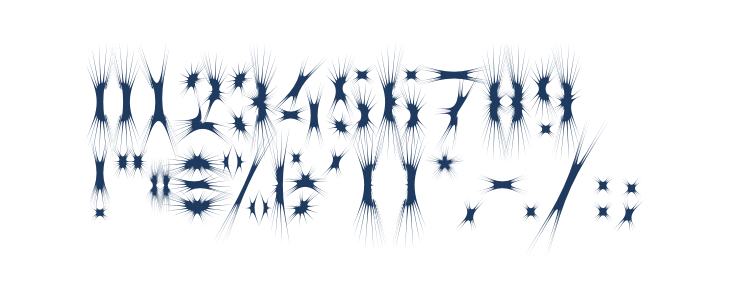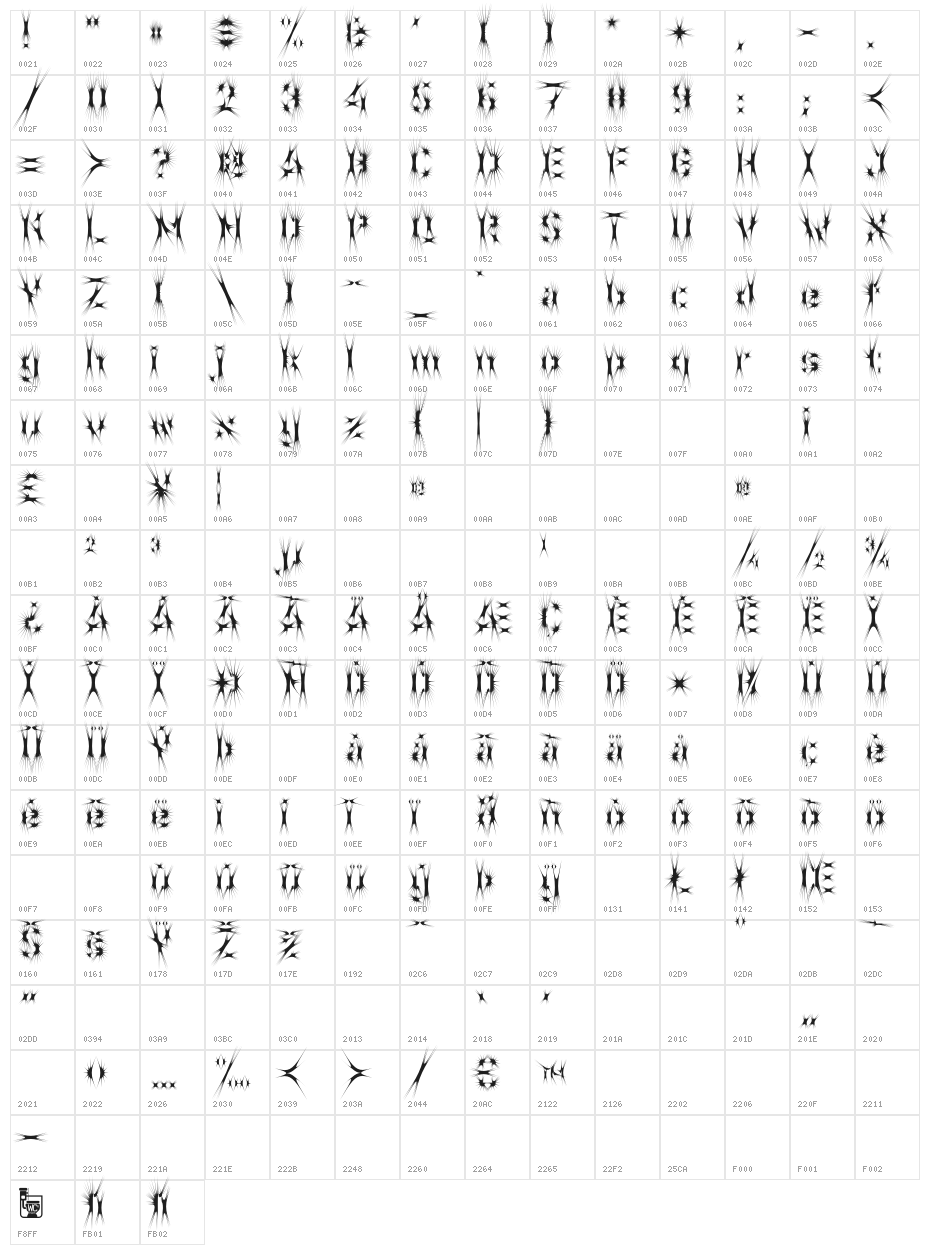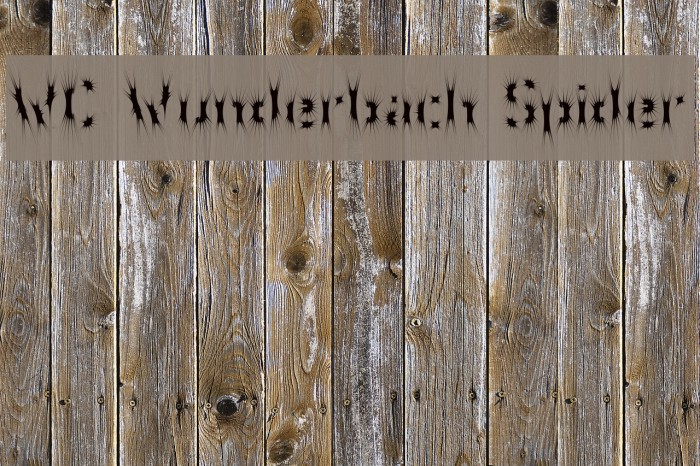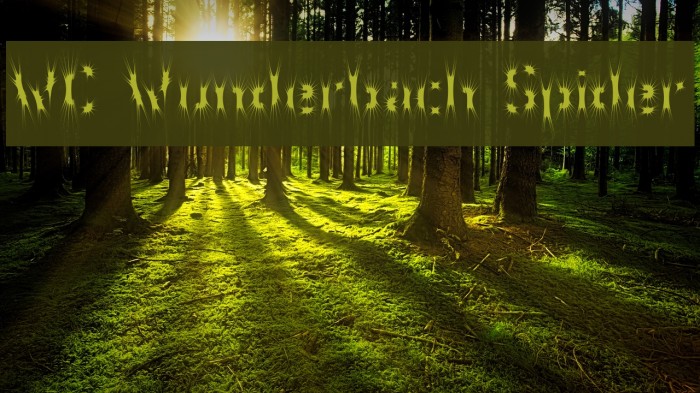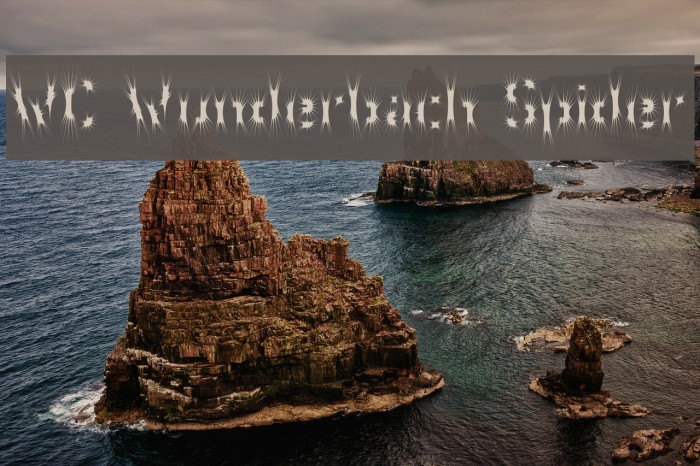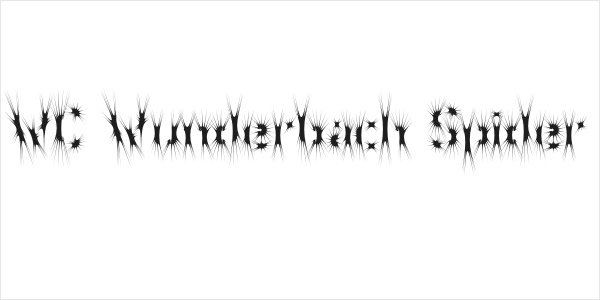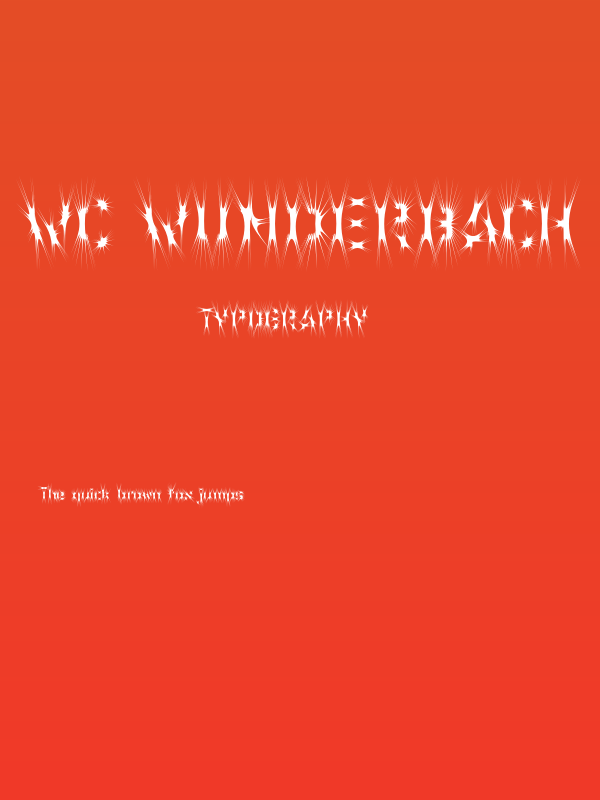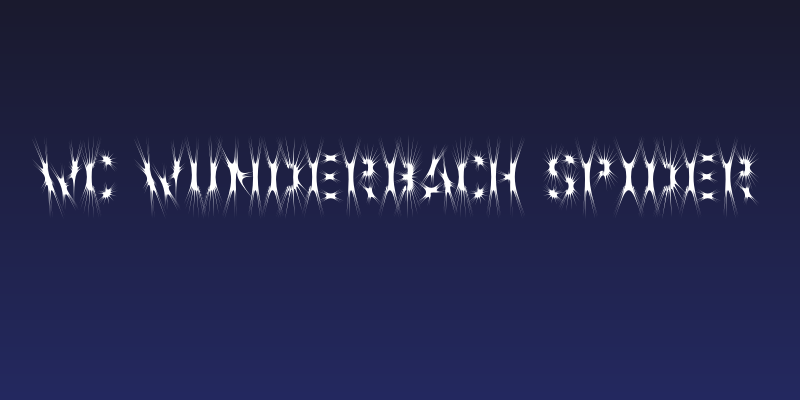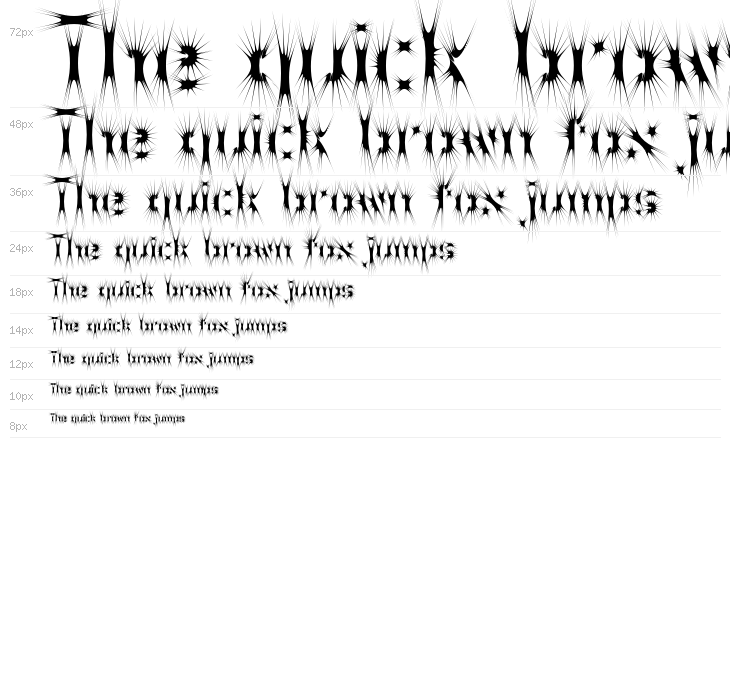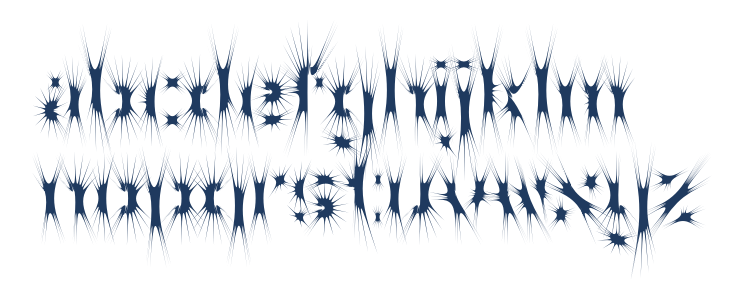
WC Wunderbach Spider Font
WC Wunderbach Spider Description
This font features a highly decorative and unique design, characterized by sharp, spiky extensions that radiate from the core of each character, resembling spider legs or starbursts. The intricate detailing creates a sense of movement and energy, making it stand out as a bold statement piece. Each letterform maintains a consistent structure, ensuring readability despite its elaborate style. The font's dramatic appearance is ideal for projects that require a striking visual impact, such as Halloween-themed designs or edgy branding materials.
| Proposed Projects | Ideal for Halloween designs, edgy branding, posters, and album covers. |